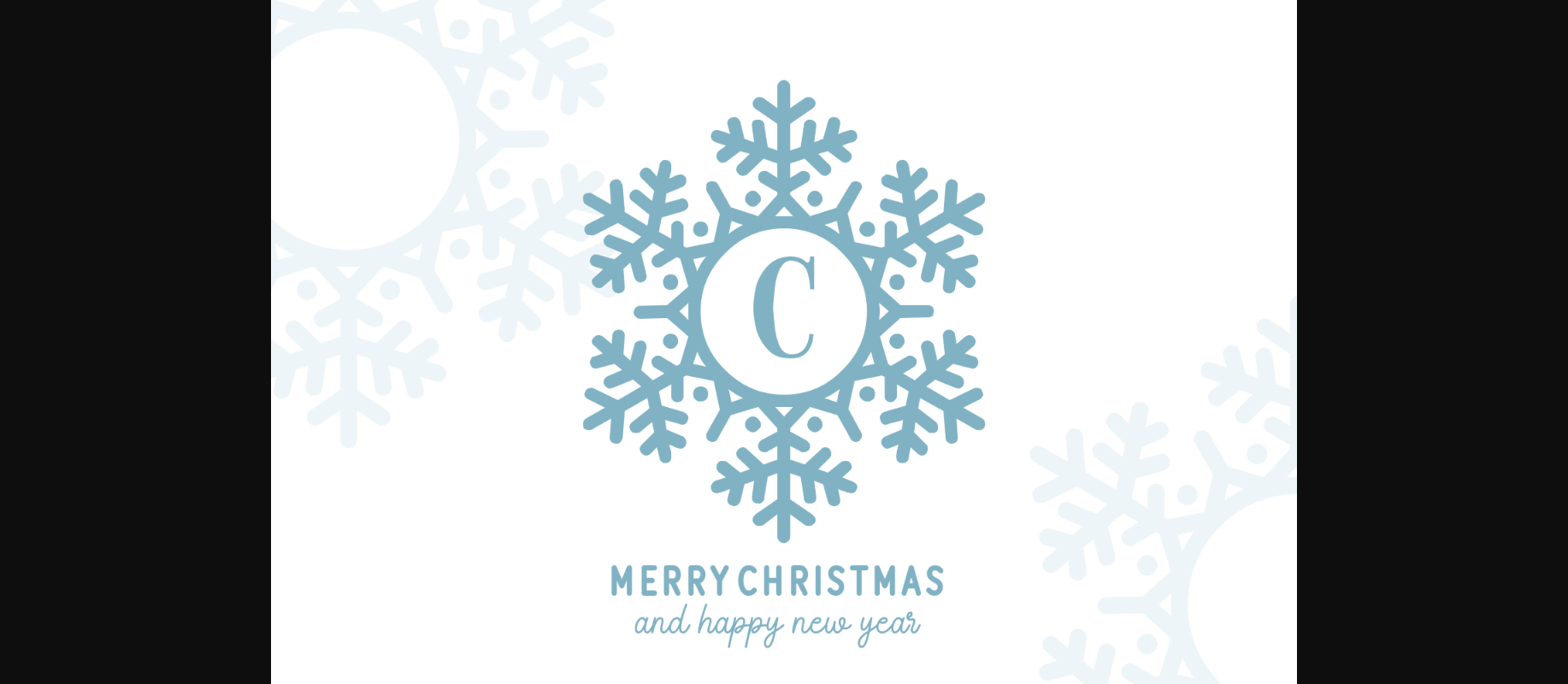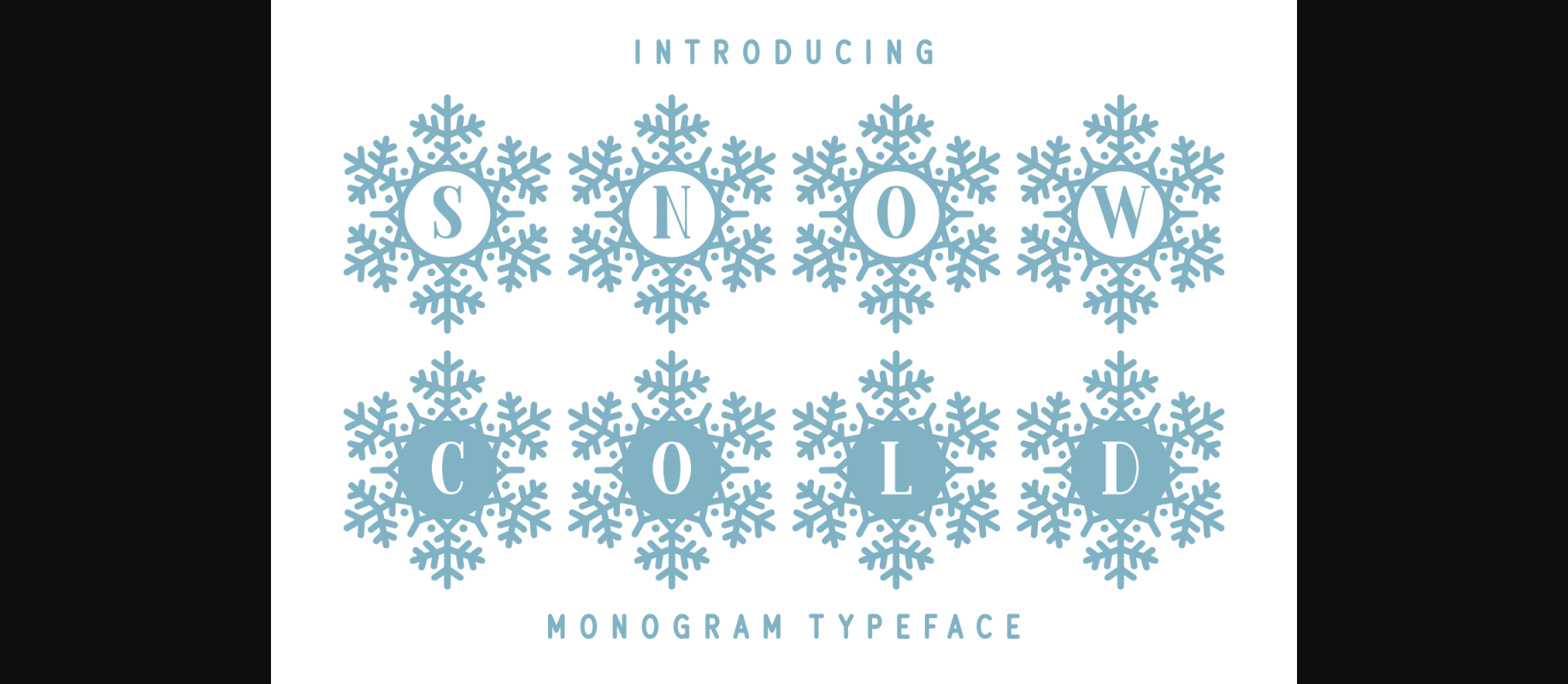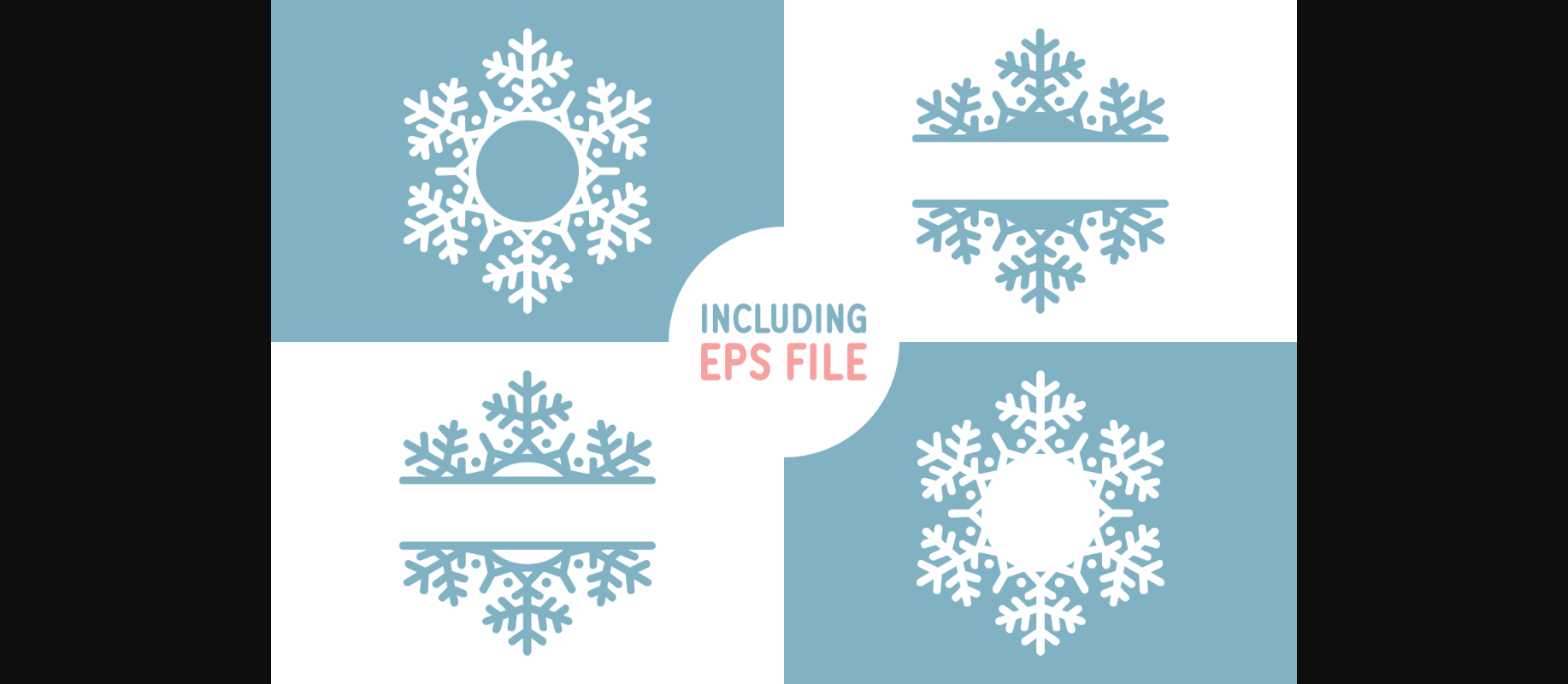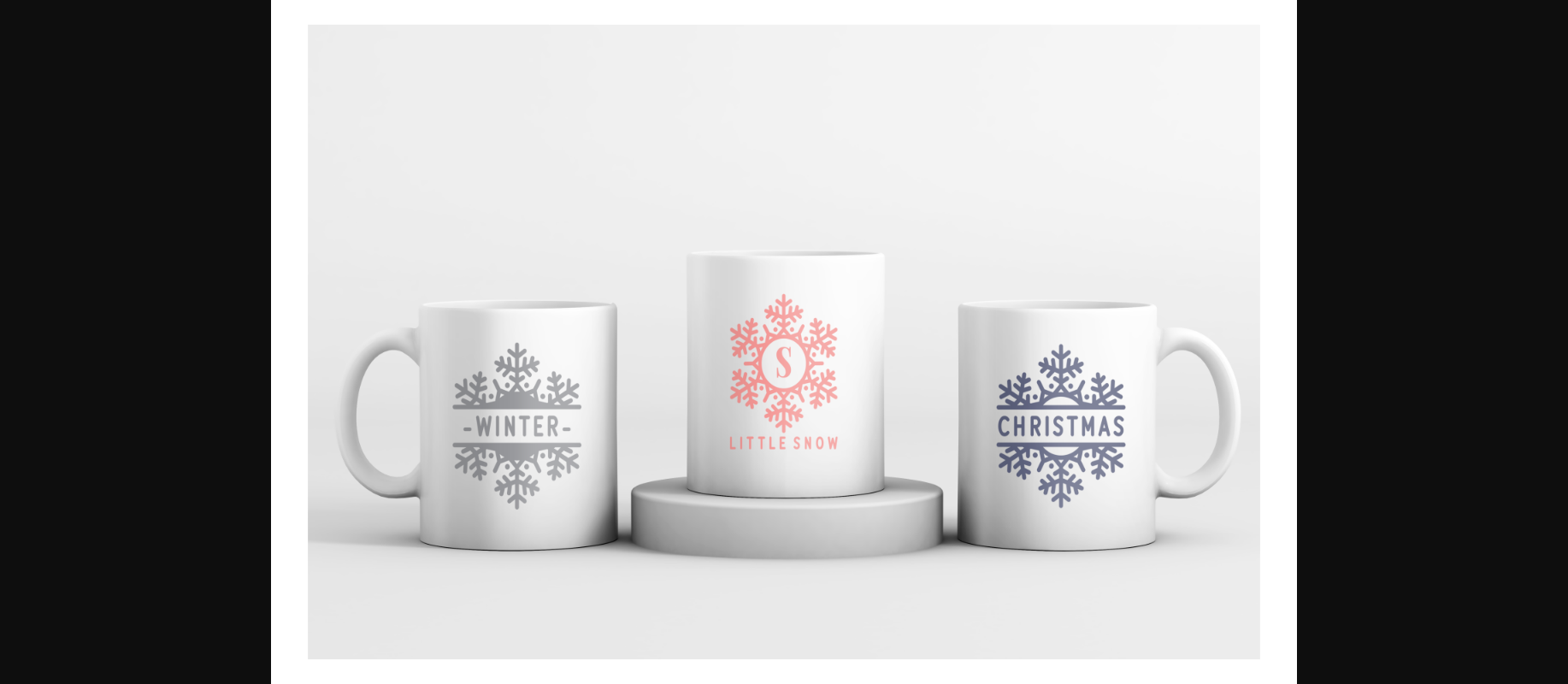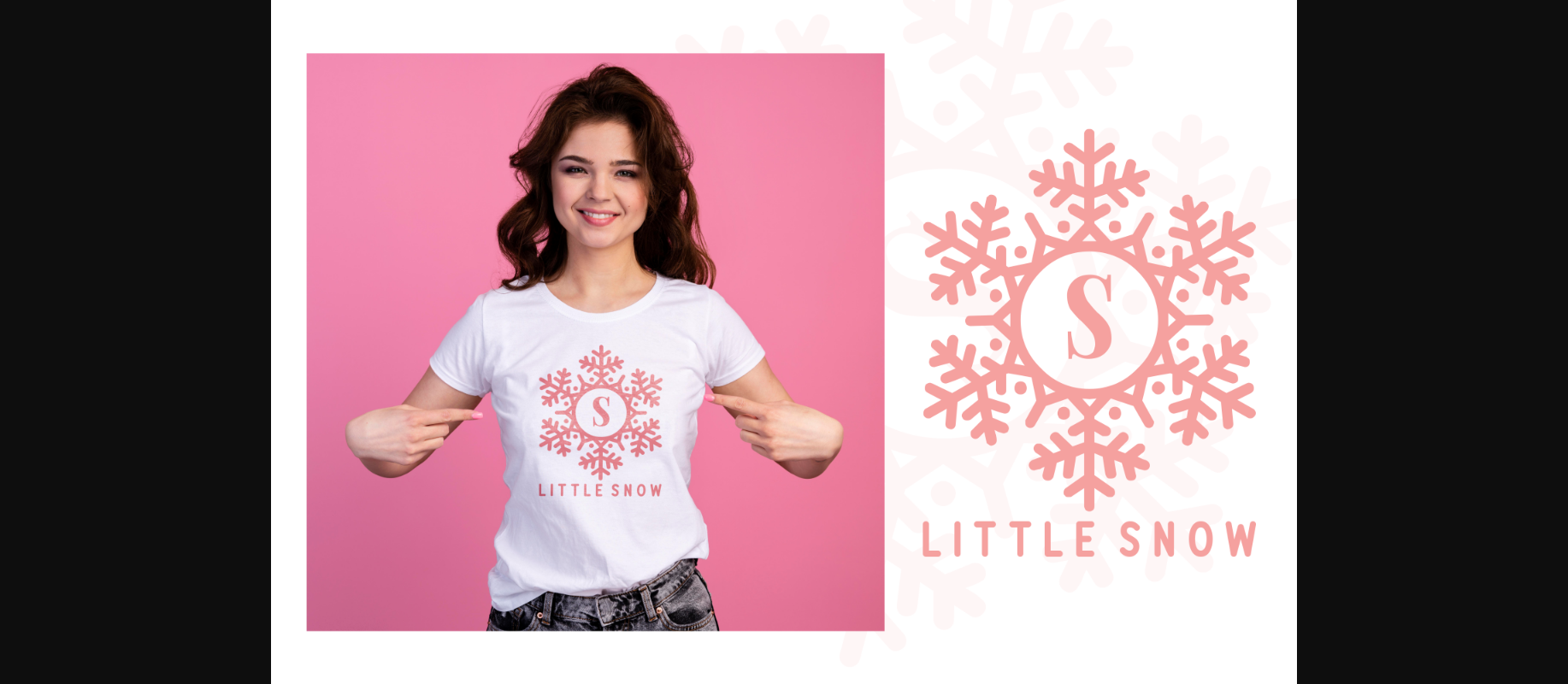
About Snow Cold Font
Snow Cold is a cute and wintery decorative font. It is PUA encoded which means you can access all of the glyphs and swashes with ease!